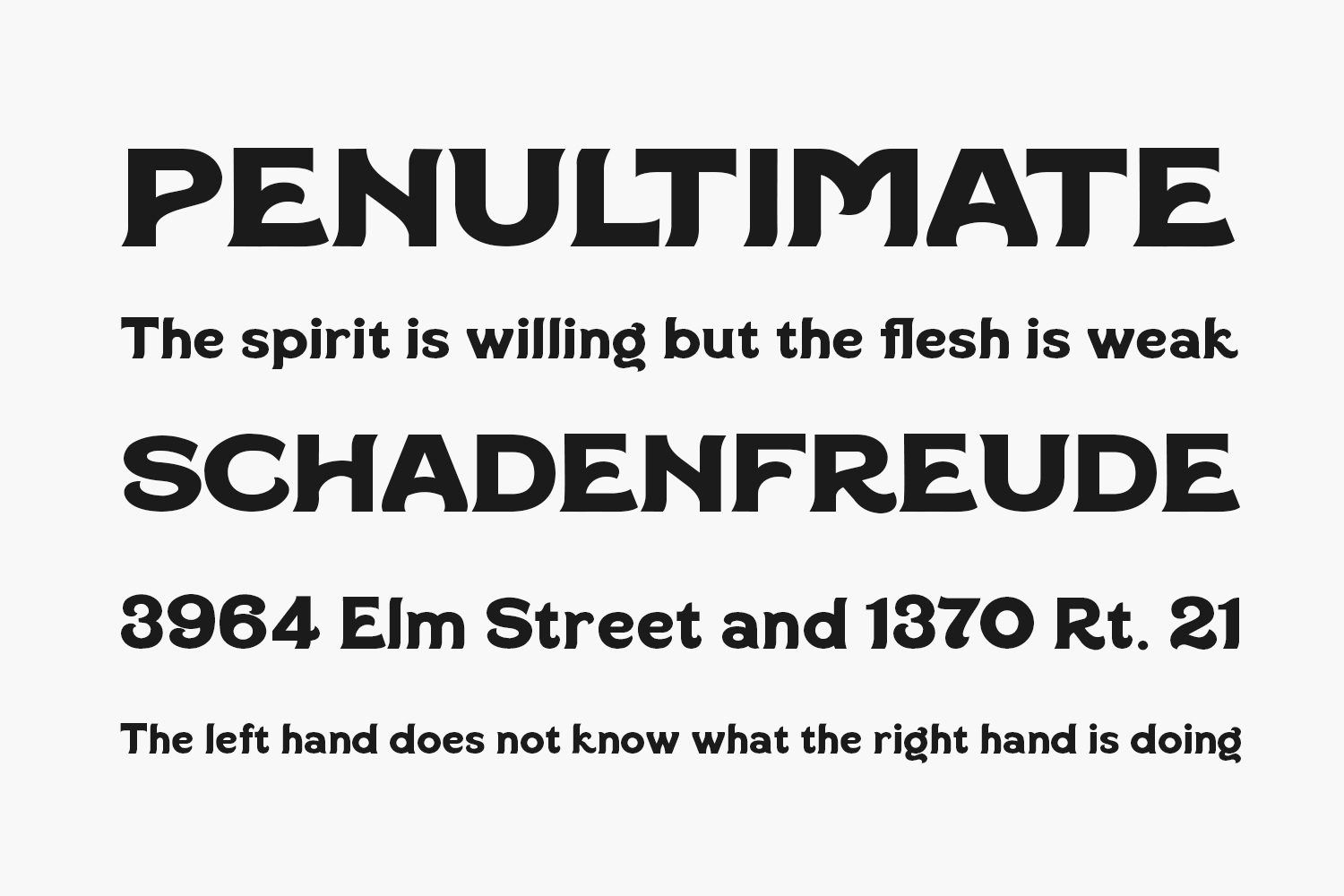
Beach Sound Free Font is a cool and vintage styled display font. Beach Sound Free Font was designed by Ikiiko type and is free for personal use only. Please purchase the full version for commercial use.
Designed by Ikiiko type